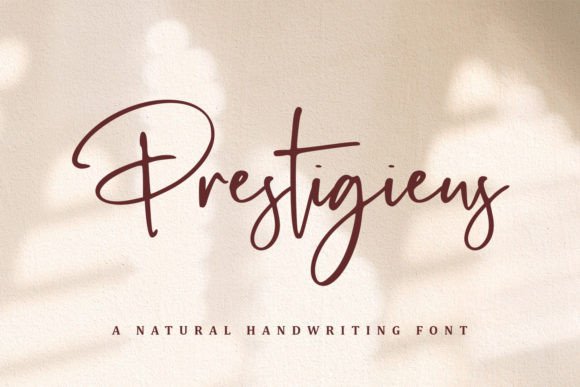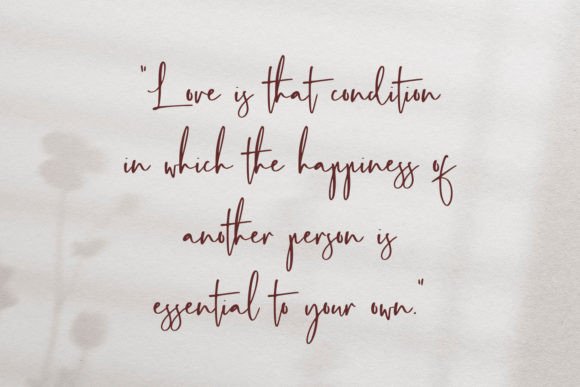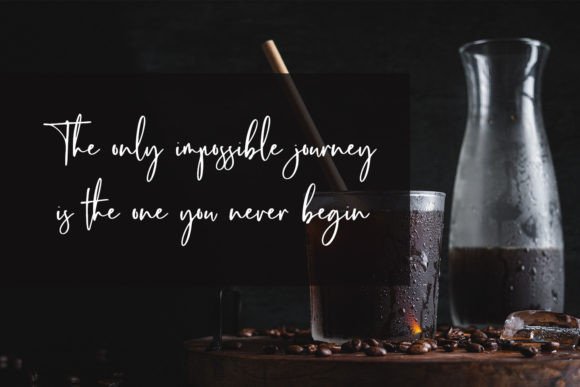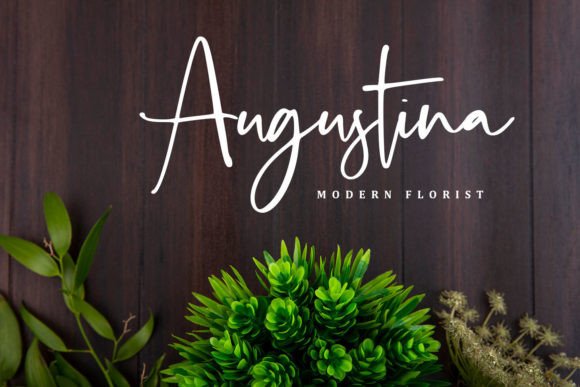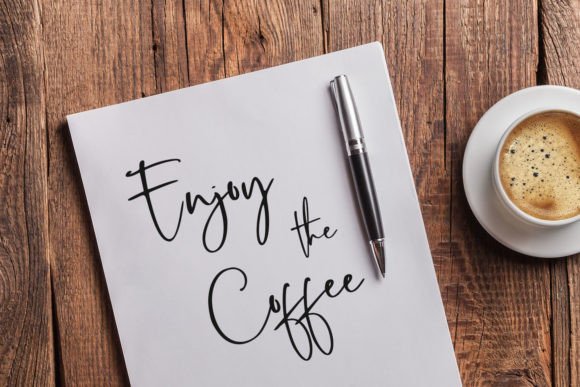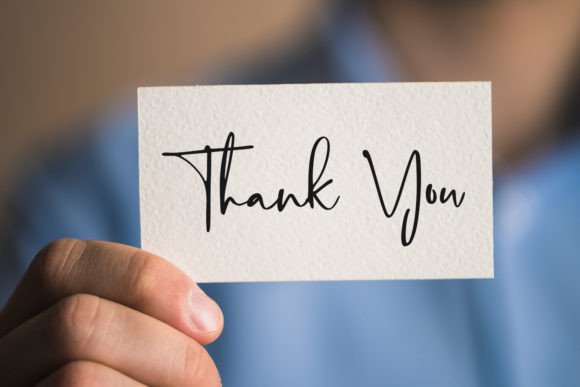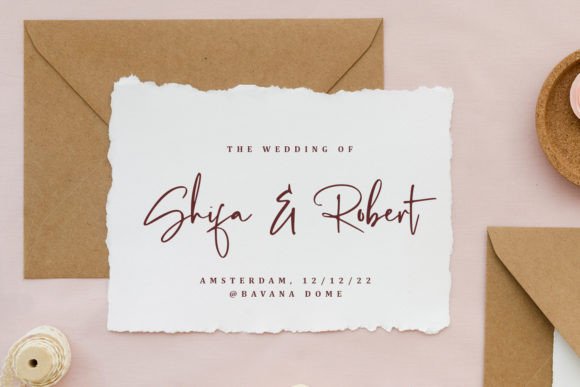
Prestigieus Font
Prestigieus Handwritten Font – Dazzling and Elegant Typeface
The Prestigieus Handwritten Font is a refined script typeface designed to bring elegance and detail to your creative projects. With its carefully crafted strokes and balanced flow, this font adds a polished touch to any design. Whether you are working on invitations, branding, or greeting cards, it delivers sophistication and charm.
A Script Font with Fine Detail
The Prestigieus Handwritten Font combines graceful handwritten elements with neatly designed details. Its balanced proportions make it highly readable, while its stylish flow provides a natural handwritten charm. Because of this, it is perfect for both personal and professional projects.
One of the strongest uses of the Prestigieus Handwritten Font is in wedding invitations, thank-you cards, and event stationery. Its refined strokes add elegance to personal projects. At the same time, it works well for posters, product packaging, and logos, enhancing branding with a sophisticated edge.
The Prestigieus Handwritten Font adapts beautifully across many design contexts. From business cards and social media graphics to labels and magazine layouts, it provides a luxurious handwritten charm. Its versatility makes it a great fit for digital as well as print projects.
Why Designers Love Prestigieus Font
Designers love the Prestigieus Handwritten Font because it blends stylish elegance with practicality. Its detailed strokes make it decorative, while its clarity ensures it remains usable in professional contexts. This balance makes it a must-have addition to any font library.
In summary, the Prestigieus HandwrittenFont is a dazzling, elegant, and versatile script typeface. With its refined handwritten details, smooth installation, and wide usability, it is perfect for invitations, logos, posters, and branding. Don’t miss the chance to download Prestigieus HandwrittenFont and bring sophistication to your creative designs.